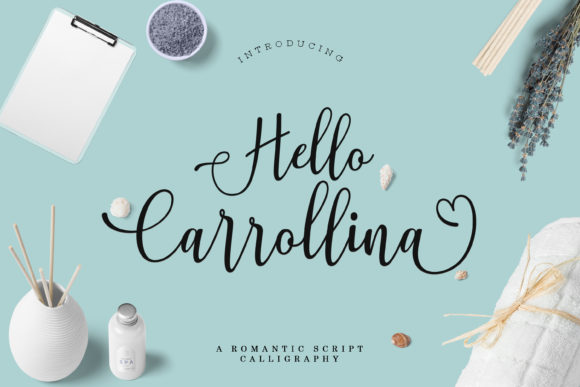
Hello Carrollina Font
Get ready to embark on a typographic adventure with the captivating Hello Carrollina Font, crafted by the renowned Zane Studio. This enchanting script font is a masterpiece that will elevate your designs with its graceful curves and swoon-worthy swashes.
Unleash your creativity as you explore the boundless possibilities of Hello Carrollina. Its elegant lines dance across the page like a melody, inviting you to express your heartfelt messages and emotions in a truly captivating way. Whether you're crafting enchanting invitations, designing unforgettable logos, or adding a touch of whimsy to your social media posts, Hello Carrollina will make your words shine.
Immerse yourself in the authentic charm of this font, meticulously designed to evoke a sense of timeless sophistication. Its intricate details and sweeping swashes will add a touch of magic to any project, leaving an unforgettable impression on your audience.
With Hello Carrollina at your fingertips, you'll discover a world where typography becomes an art form. Its versatility knows no bounds, making it the perfect choice for a multitude of design endeavors. From delicate wedding invitations to bold and eye-catching posters, Hello Carrollina will transform your words into works of art.